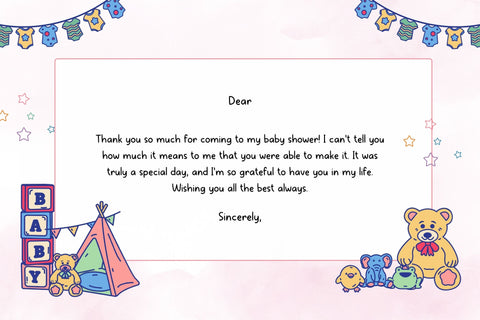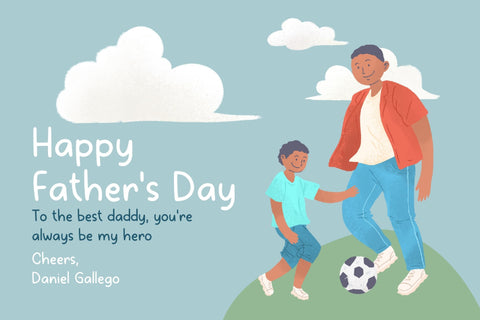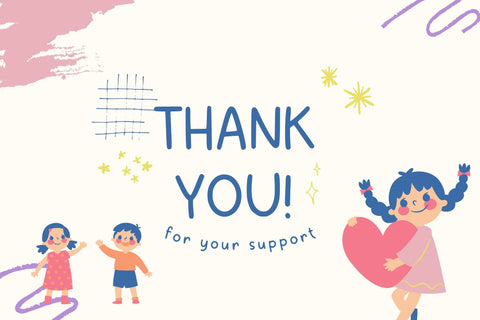
Baljufeo Handwriting Font
Baljufeo handwriting font boasts an exquisite blend of elegance and spontaneity. With each stroke, it weaves a story of graceful curves and artistic flair, mimicking the authenticity of handcrafted penmanship. The letters dance across the page with a rhythmic flow, infusing a sense of personality into every written word. Baljufeo is more than a font; it's a visual journey that adds a touch of charm and sophistication to your projects, bridging the gap between digital precision and the warmth of human handwriting.